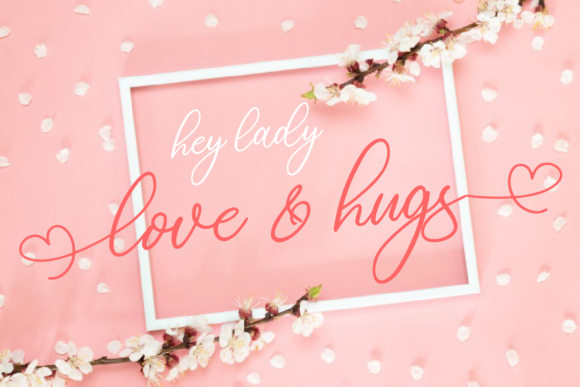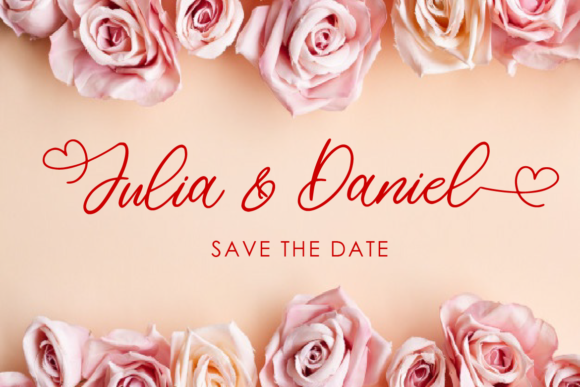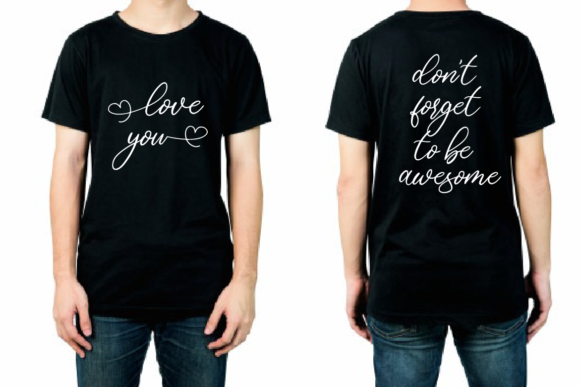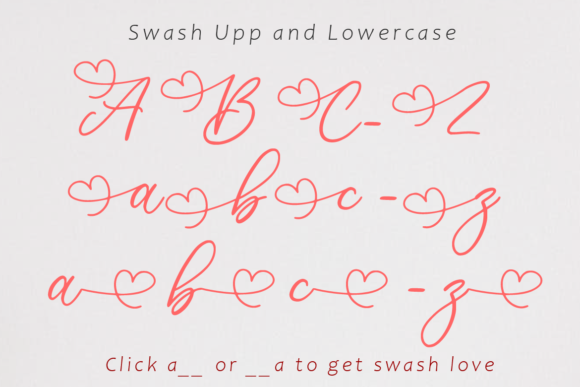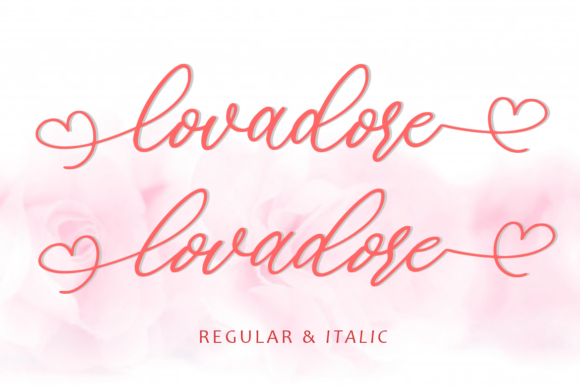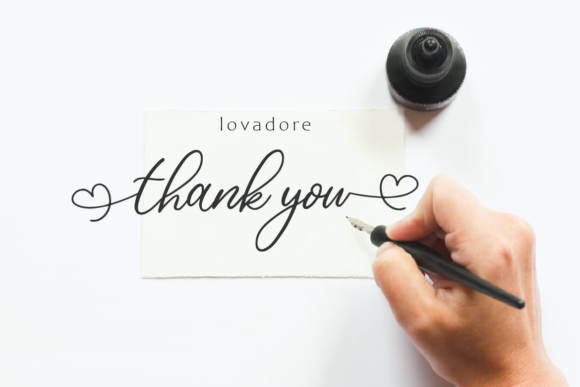
Introduction to Lovadore Font Font
Fonts play a crucial role in design, and the Lovadore Font font is a typeface that brings both character and versatility to any project. Whether you’re working on a branding project, a website, or a print design, the Lovadore Font font offers a unique style that can elevate your work.
Lovadore is a dainty, all round and flexible handwritten font.
Warm, romantic and jolly, this font will turn each of your project ideas into real works of art This font is PUA encoded which means you can access all of the glyphs and swashes with ease.
Key Features of Lovadore Font Font
Why Choose Lovadore Font Font?
The Lovadore Font font is more than just a typeface – it’s a design tool that helps you communicate your message with style and clarity. Its unique character set and versatile design make it suitable for a wide range of applications, from elegant invitations to bold headlines.
With its carefully crafted letterforms and balanced proportions, the Lovadore Font font ensures readability and visual appeal across all mediums.
What makes Lovadore Font font special?
The Lovadore Font font stands out with its unique design, exceptional readability, and versatility across various design applications.